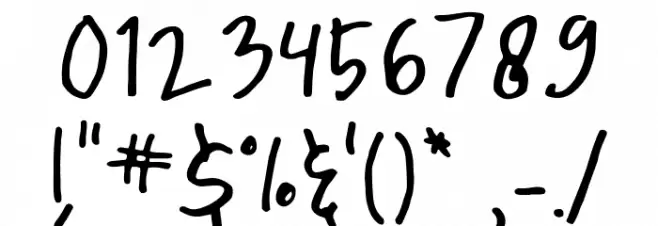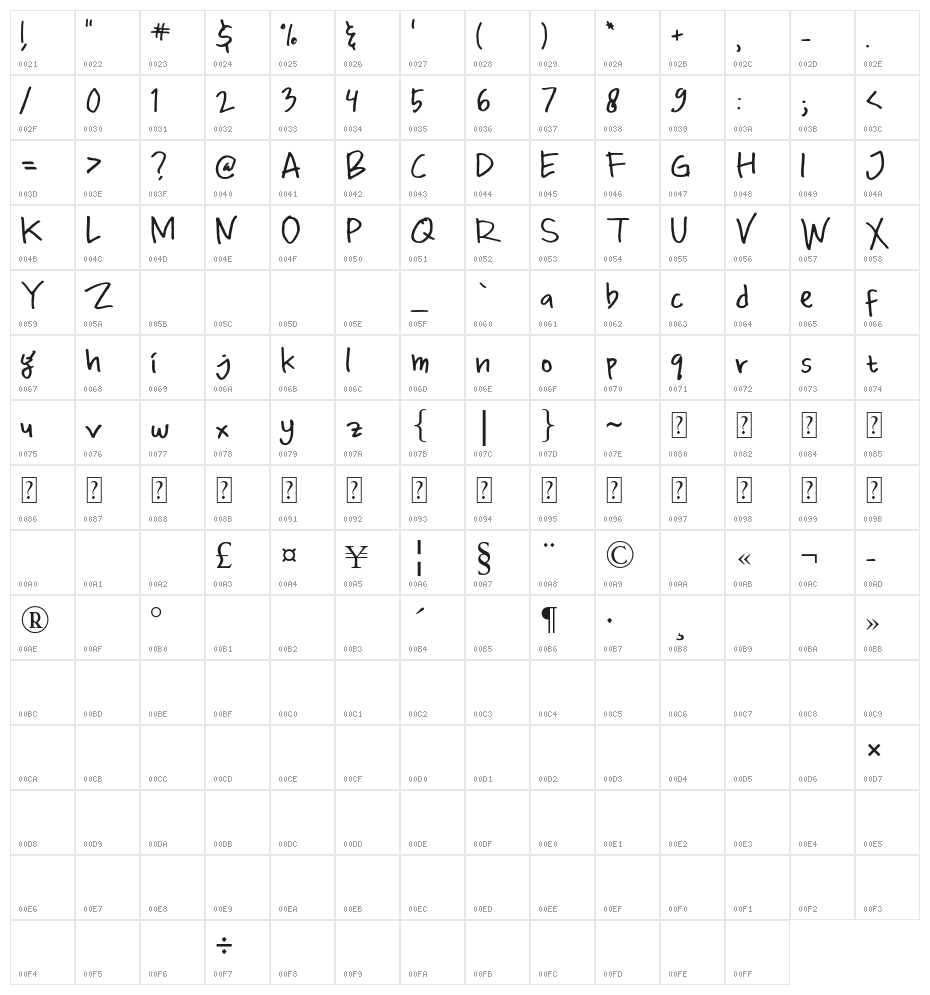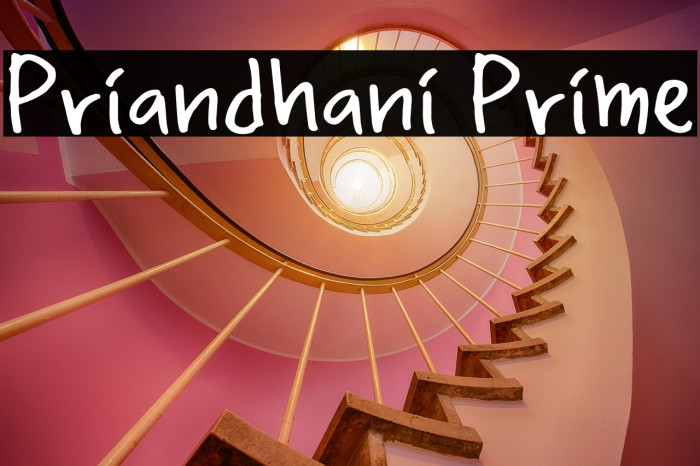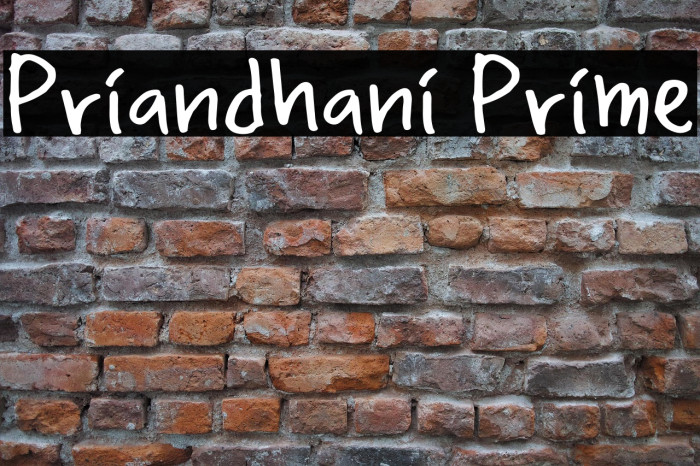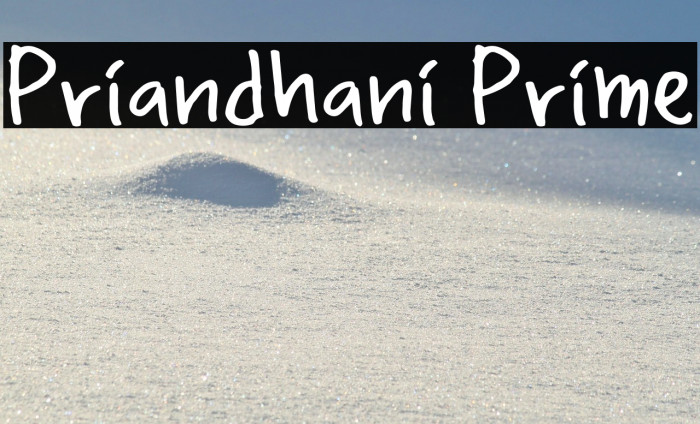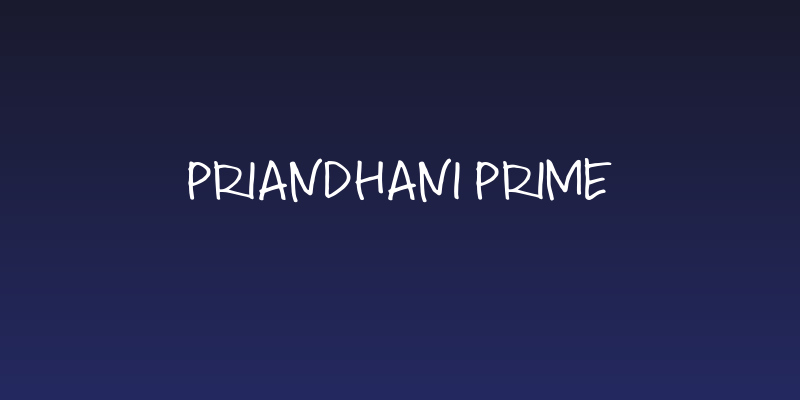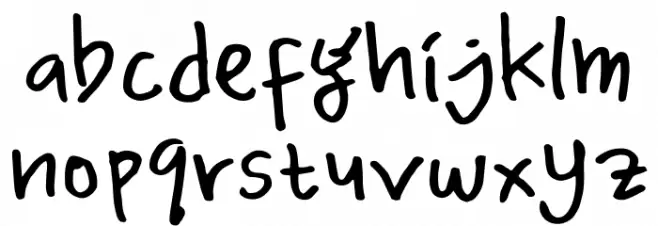
Priandhani Prime Font
Priandhani Prime Description
This font exhibits a playful and informal handwritten style, characterized by its irregular and slightly whimsical letterforms. The strokes are uneven, giving it a casual and approachable feel, reminiscent of a personal note or doodle. The uppercase and lowercase letters maintain a consistent style, with a slight slant that adds to its dynamic appearance. The numbers and special characters follow the same playful design, ensuring a cohesive look across all elements. This font is ideal for projects that require a touch of personality and creativity.
| Proposed Projects | Ideal for greeting cards, children's books, casual branding, and creative social media graphics. |